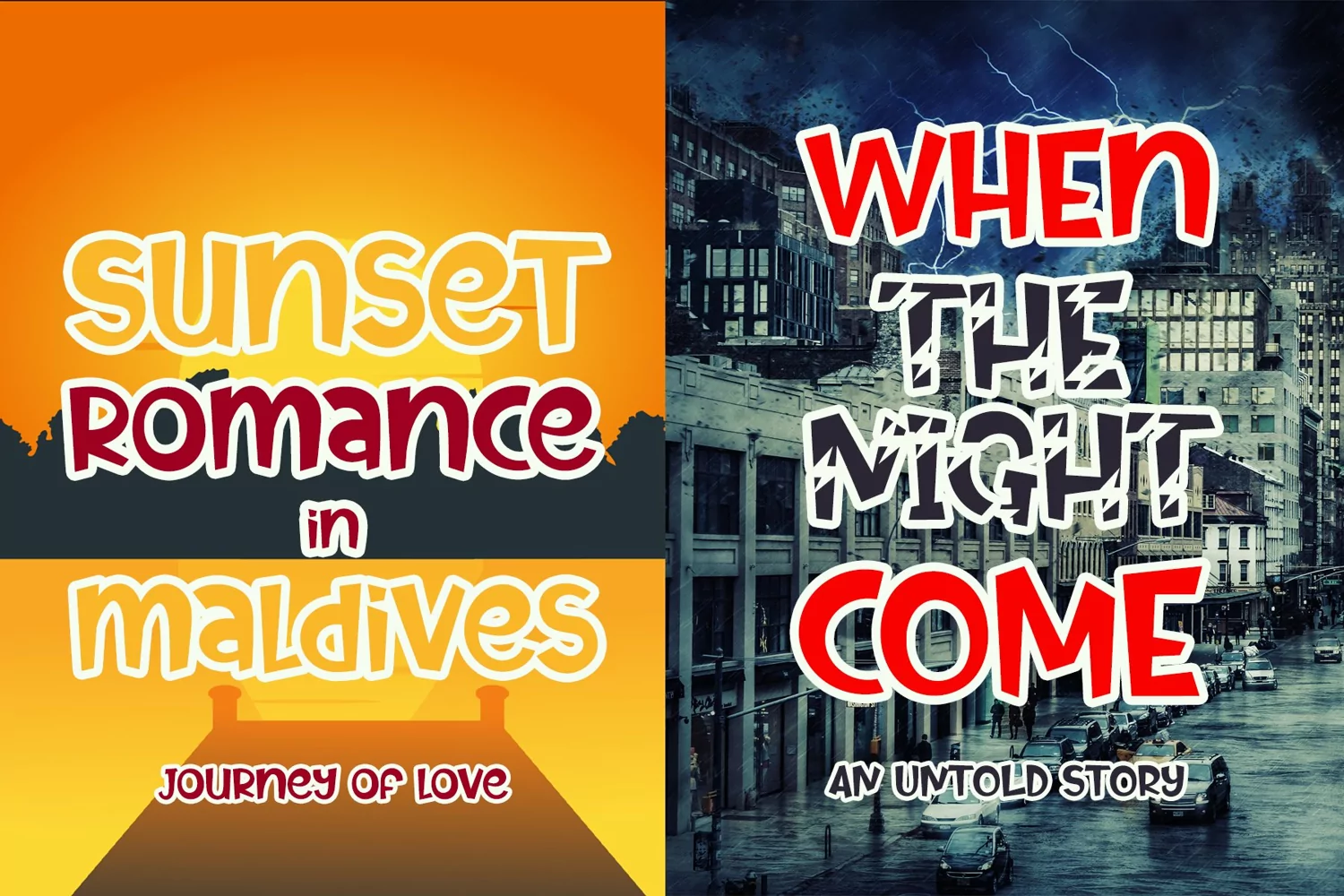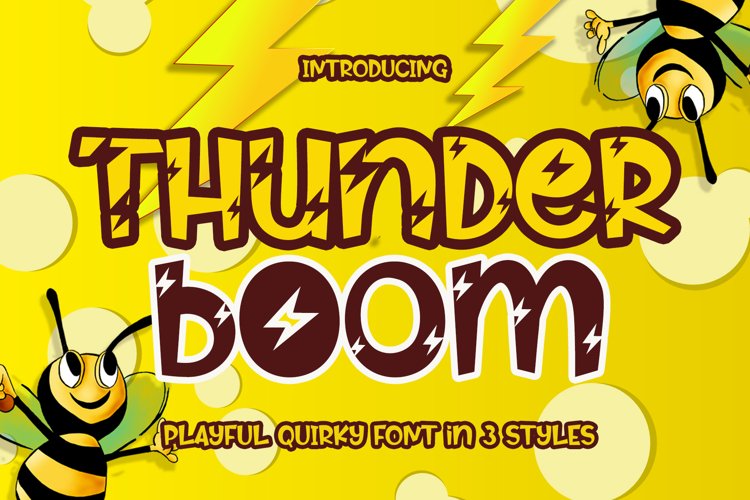
Thunder Boom - Playful Comic Font
Thunder Boom is display font with playful vibe. This font is so versatile for any creative project.
Thunder Boom has 3 quirky styles: regular styles, crack style, and flash style. It gives many options for designing.